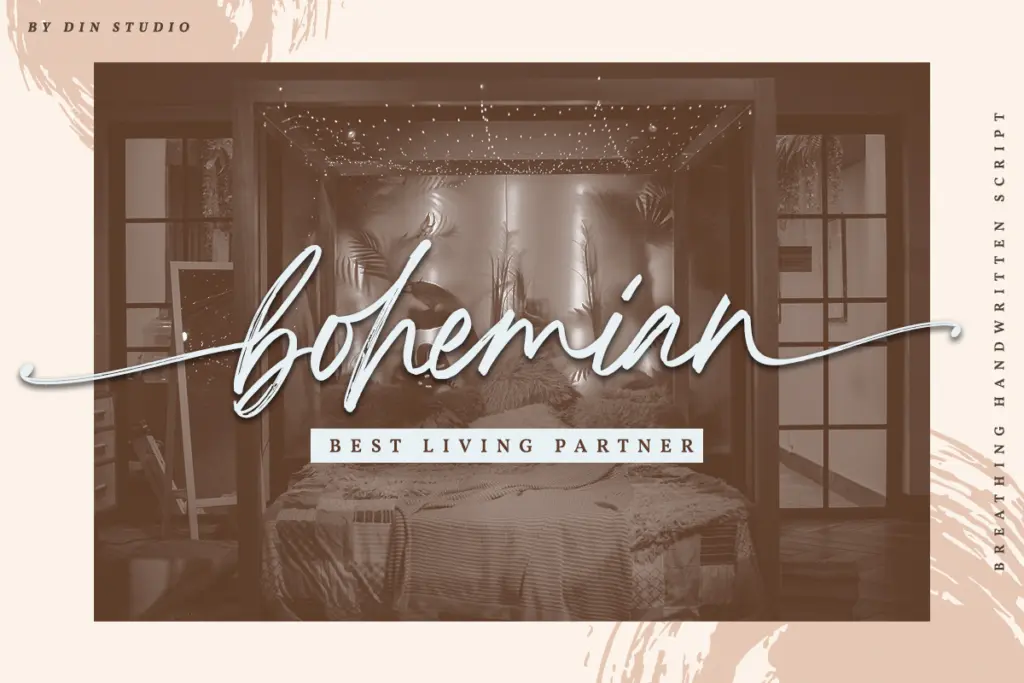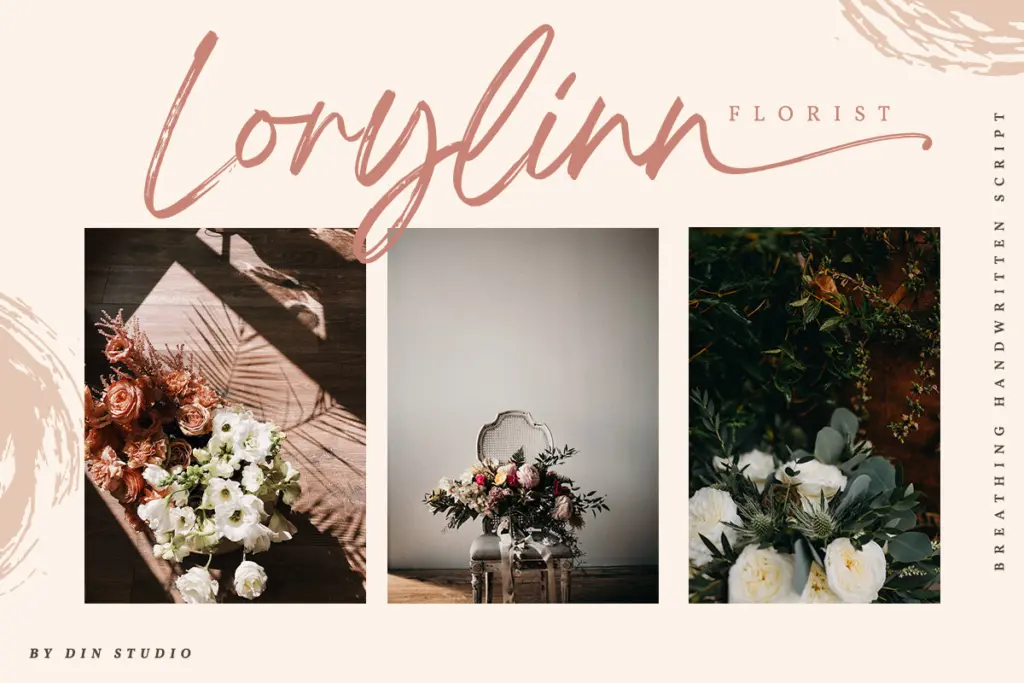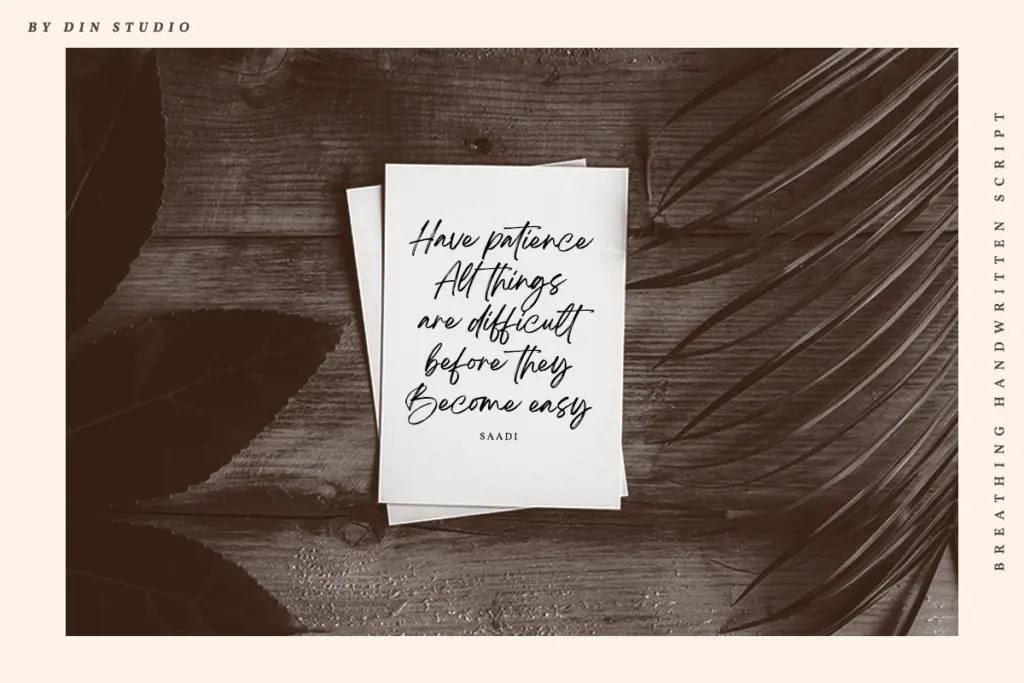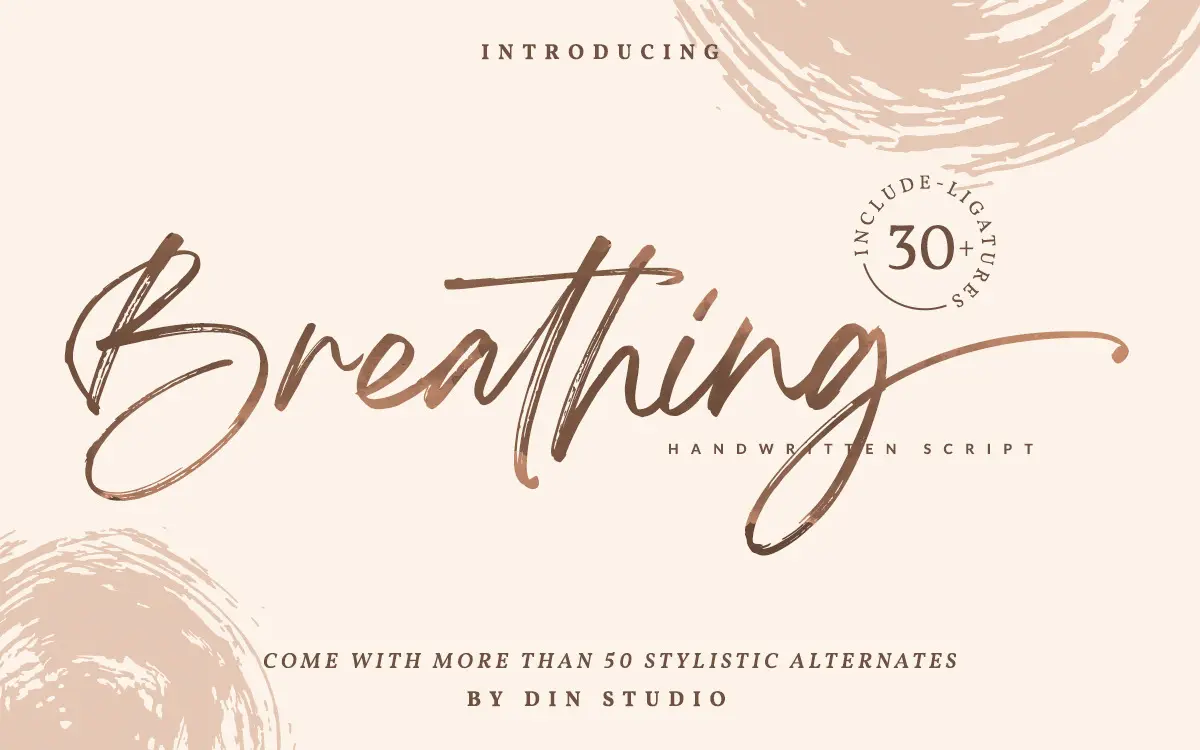
Breathing sits in the crowded field of brush signature scripts, the kind built to look like a felt-tip or dry brush moved quickly across paper. The strokes swell and taper with visible pressure changes, and the baseline dips and rises letter to letter rather than sitting flat. That movement is the whole point: it reads as handwriting rather than as a constructed alphabet, and it does so convincingly at a glance.
What separates a script like this from a mechanical one is how much variation is built into the letters themselves, and Breathing leans hard on that with a large stylistic set count. Rather than one fixed shape per character, you’re given dozens of alternates to swap in, which lets you break up repeated letters in a word so the whole thing doesn’t look stamped. The trade-off is that the font asks more of you than a plug-and-play script would. Left on autopilot, brush scripts like this can look flat or repetitive; here the flatness is avoidable, but only if you go looking for the alternates.
The feature list is substantial for a script of this type: 52 stylistic sets and 37 ligatures, alongside numerals and punctuation. Ligatures matter more than usual in brush scripts because letter pairs need to connect convincingly for the handwriting illusion to hold, and a font that only offers one way to join two letters will eventually produce an awkward collision. Having three dozen-plus ligatures suggests the designer anticipated a fair number of common combinations, though as with any script font, unusual word shapes or long strings of ascenders and descenders will still need manual checking.
PUA encoding means the stylistic alternates are reachable even in apps that don’t support OpenType features natively, which is a practical inclusion for a script font sold to a broad audience rather than just those working in InDesign or Illustrator with full OpenType panels. Multilingual support is claimed but not detailed, so treat that as a general capability rather than a guarantee for any specific language’s diacritics.
This is a display face, not a text face, and it should stay that way. At small sizes the stroke contrast and connecting flourishes will clot together; it wants headline sizes, short phrases, logotypes, and signature-style lockups. Wedding stationery and invitations are an obvious fit, as are packaging accents, book covers, and social posts where a handful of words need to feel personal rather than typeset. Logo work is plausible too, particularly for brands trying to signal warmth or craft, but a script this expressive is not a font to build a wordmark on without testing it at the actual output size and material first.
Avoid it for body copy, dense signage, or anything that needs to be legible from a distance or read quickly — that’s not a flaw specific to Breathing, it’s the nature of brush scripts generally. Pair it with a plain, quiet sans or serif for supporting text rather than asking it to carry a whole layout on its own.
- Large stylistic set count lets you vary repeated letters instead of looking stamped out
- Substantial ligature set helps letter pairs connect convincingly
- PUA encoding makes alternates accessible even without full OpenType support
- Requires manual attention to alternates and ligatures to avoid a flat, repetitive result
- Not usable below display sizes — dense or small settings will clot
Breathing is a competent brush script with enough alternates and ligatures to avoid the repetitive look that plagues cheaper scripts in this category. It needs deliberate use — swapping letterforms, checking joins — to look its best, and it's strictly a display face. Good for signature-style branding and stationery, not for anything that needs to be read quickly or small.